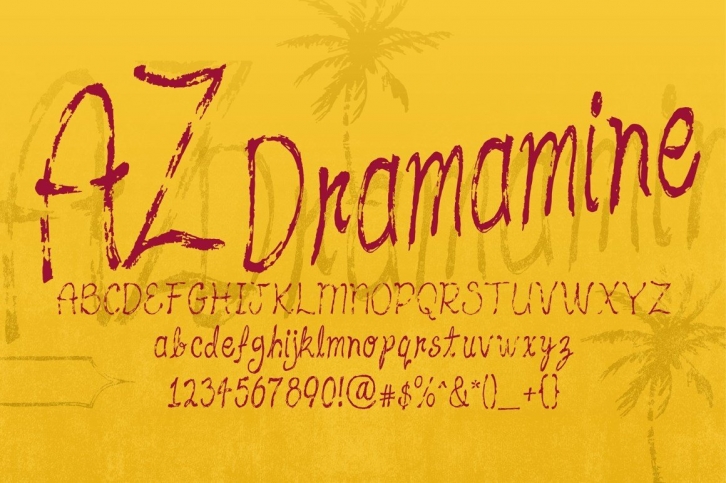
AZ Dramamine font has some inspiration from A&F tee-shirts, but mostly it is completely original script.
This font was designed for use as a worn and antiqued headline.